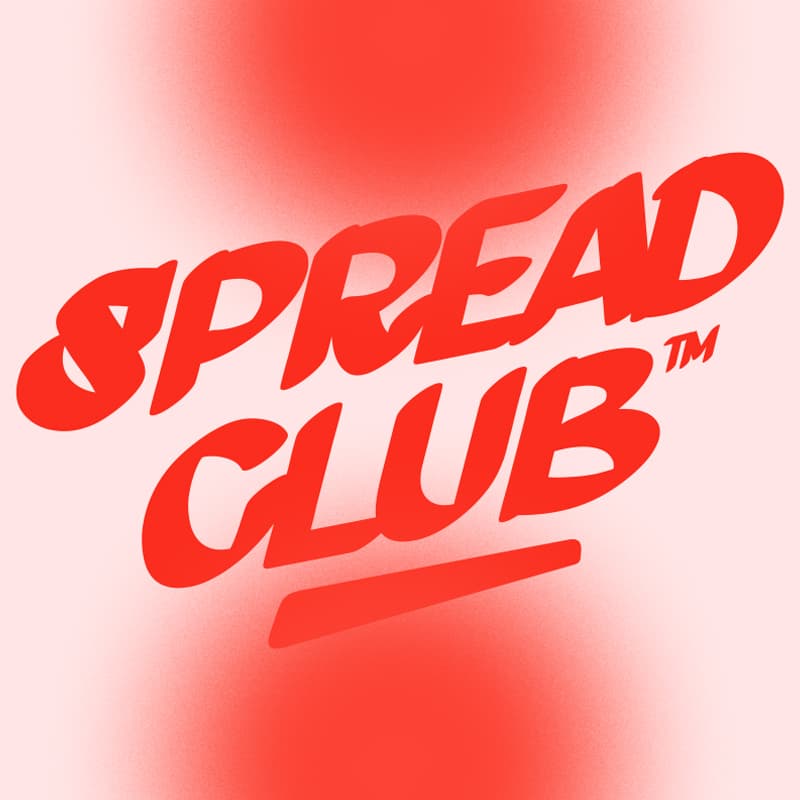
<p>The Spread Club font far exceeds expectations when it comes to versatility. With its distinct marker style, it becomes a perfect complement not only to large-format prints but also to various digital platforms—anywhere you want to make an impactful visual statement. As a bonus, this product package comes inclusive with handy illustrations and editable text combinations, giving designers the freedom to tweak and tailor-fit their content according to their unique specifications.</p><p></p><ul><li><p>Marker-Style Typeface: Intended for an organic feel, emulating the look of handwritten text.</p></li><li><p>Editable Combinations: Gives designers full control to customize texts, ensuring alignment with their specific design ethos.</p></li><li><p>Bonus Illustrations: Enhance the aesthetic value of your content, fostering a visually harmonious composition.</p></li><li><p>Social Media and Print Compatible: Designed for multipurpose usage, great for both digital and print formats.</p></li><li><p>Designed by Fateh.Lab: A guarantee of quality from a trusted name in the graphic design industry.</p></li></ul><p></p>